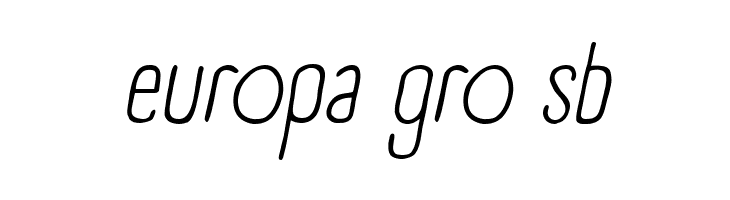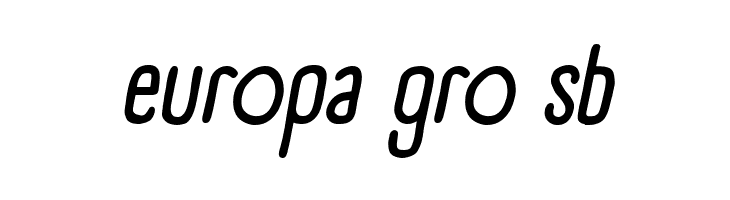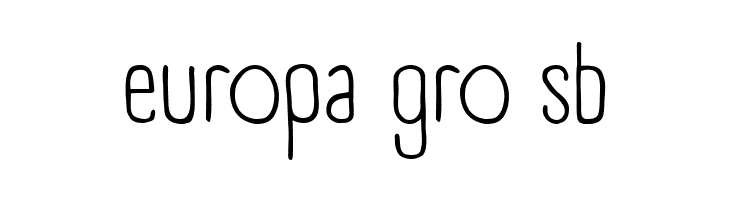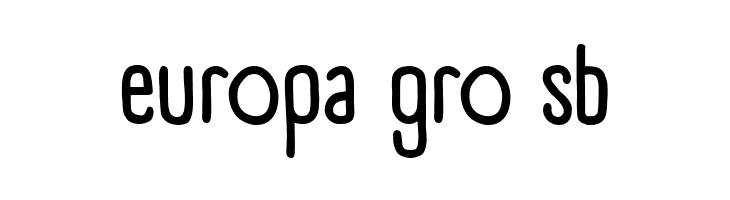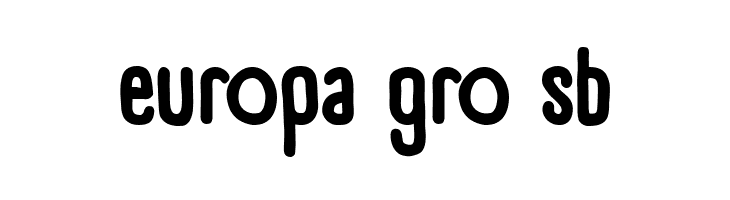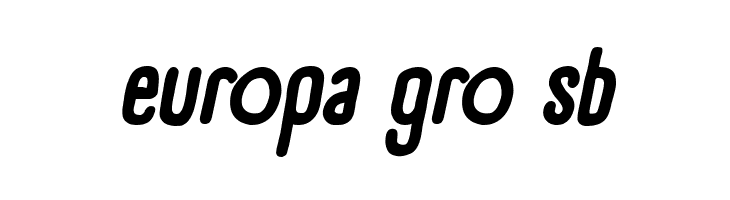
A bold, condensed font with rounded edges and tight spacing.
A bold, italic, and condensed font with a modern and dynamic style.
A modern, condensed, and light font with geometric letterforms.
A sleek, condensed, light italic font with a modern and elegant style.
A modern, condensed font with a clean and streamlined appearance.
A modern, condensed italic font with uniform strokes and a sleek appearance.